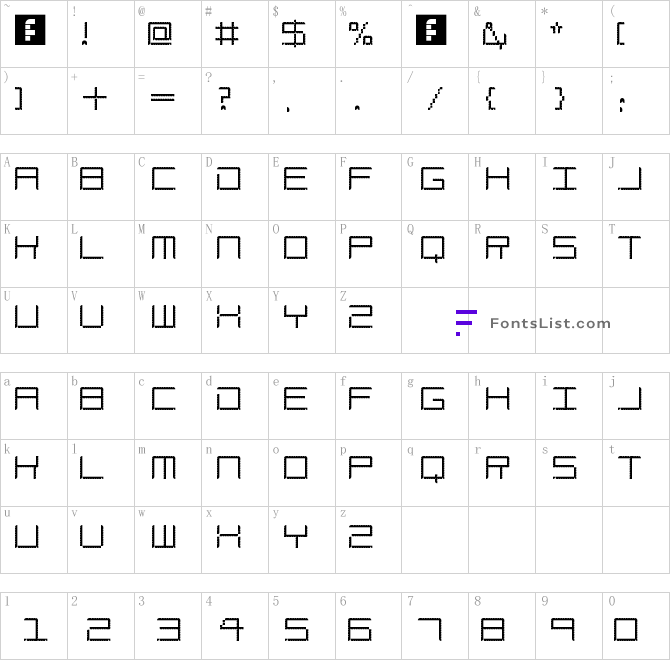
- Font Name:Amaya Technical Curve
Amaya-Technical-Curve-Regular.ttf is a very beautiful artistic font, Amaya-Technical-Curve-Regular.ttf is widely used in the design and printing of various books and pictures,Amaya-Technical-Curve-Regular.ttf has a strong visual impact,Amaya-Technical-Curve-Regular.ttf is a commonly used font in newspapers, magazines and books, and is used in posters, e-commerce Poster design, store design, logo design, font design and other fields.Amaya-Technical-Curve-Regular.